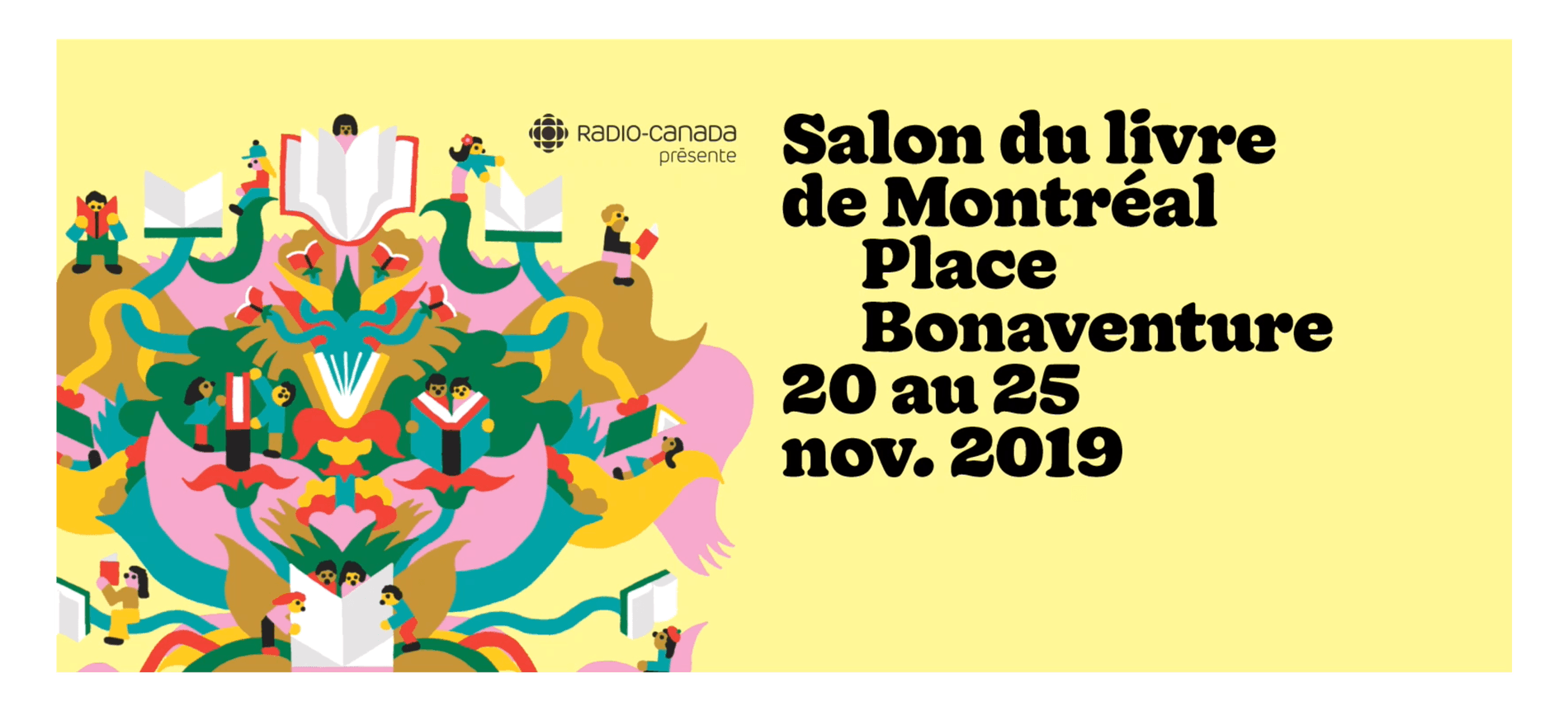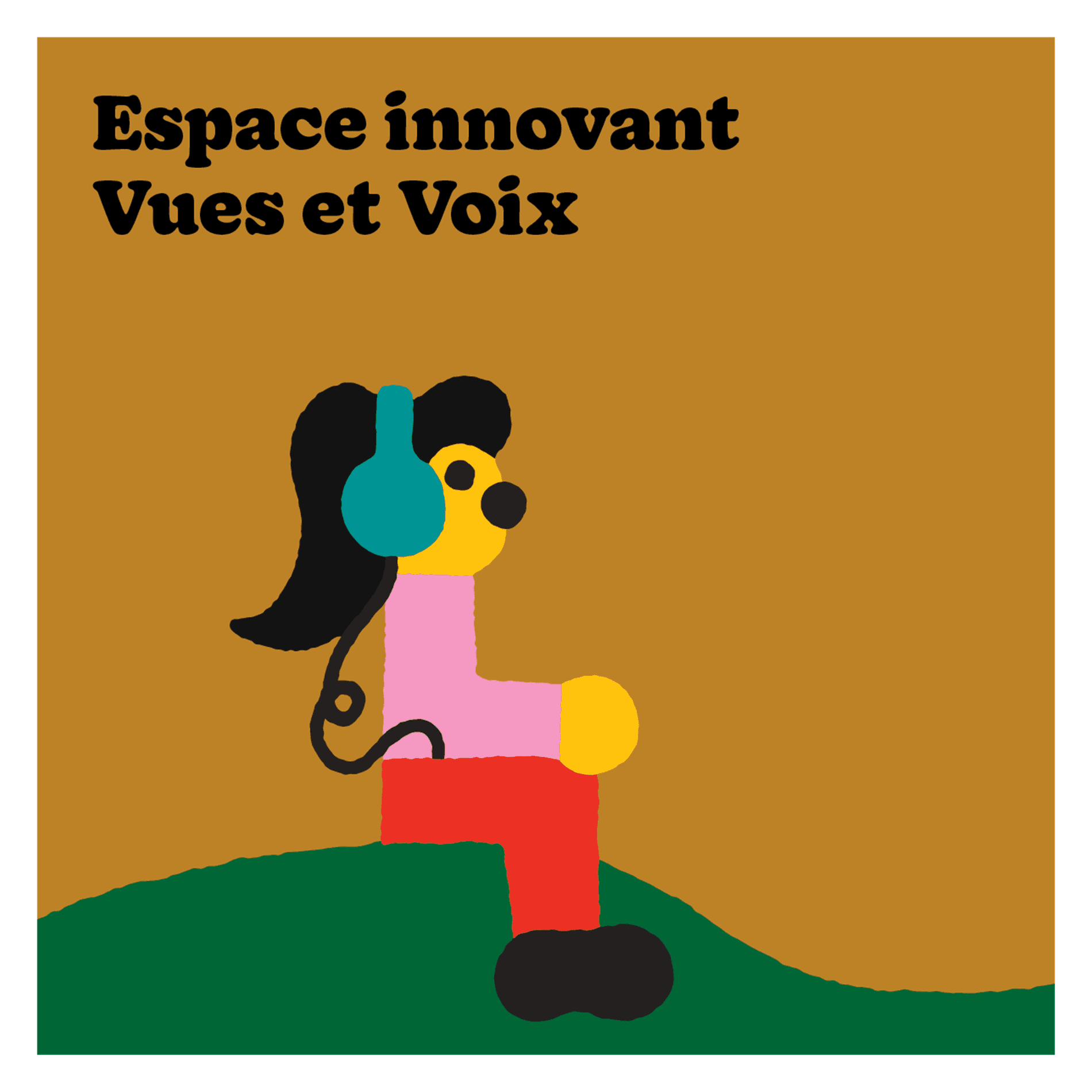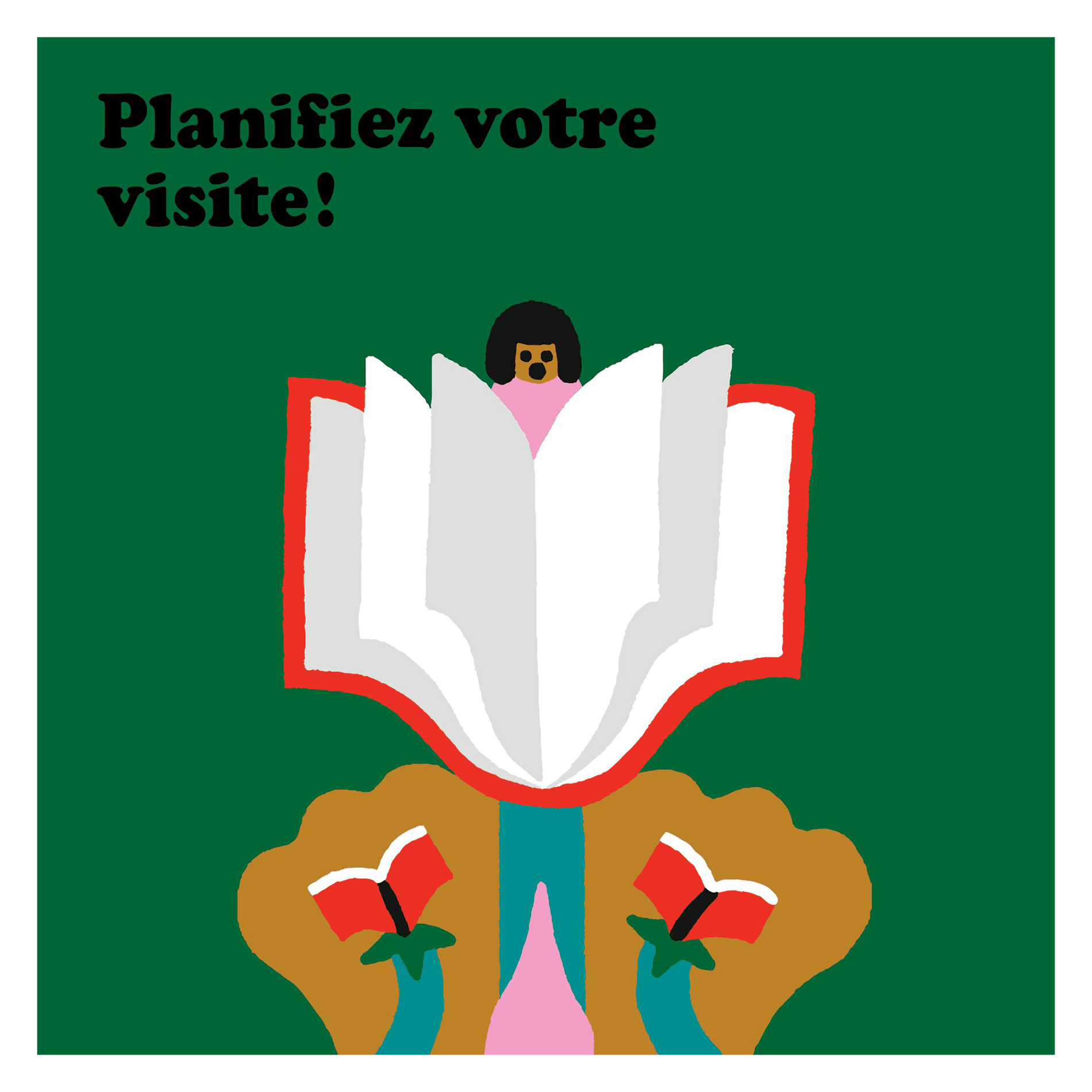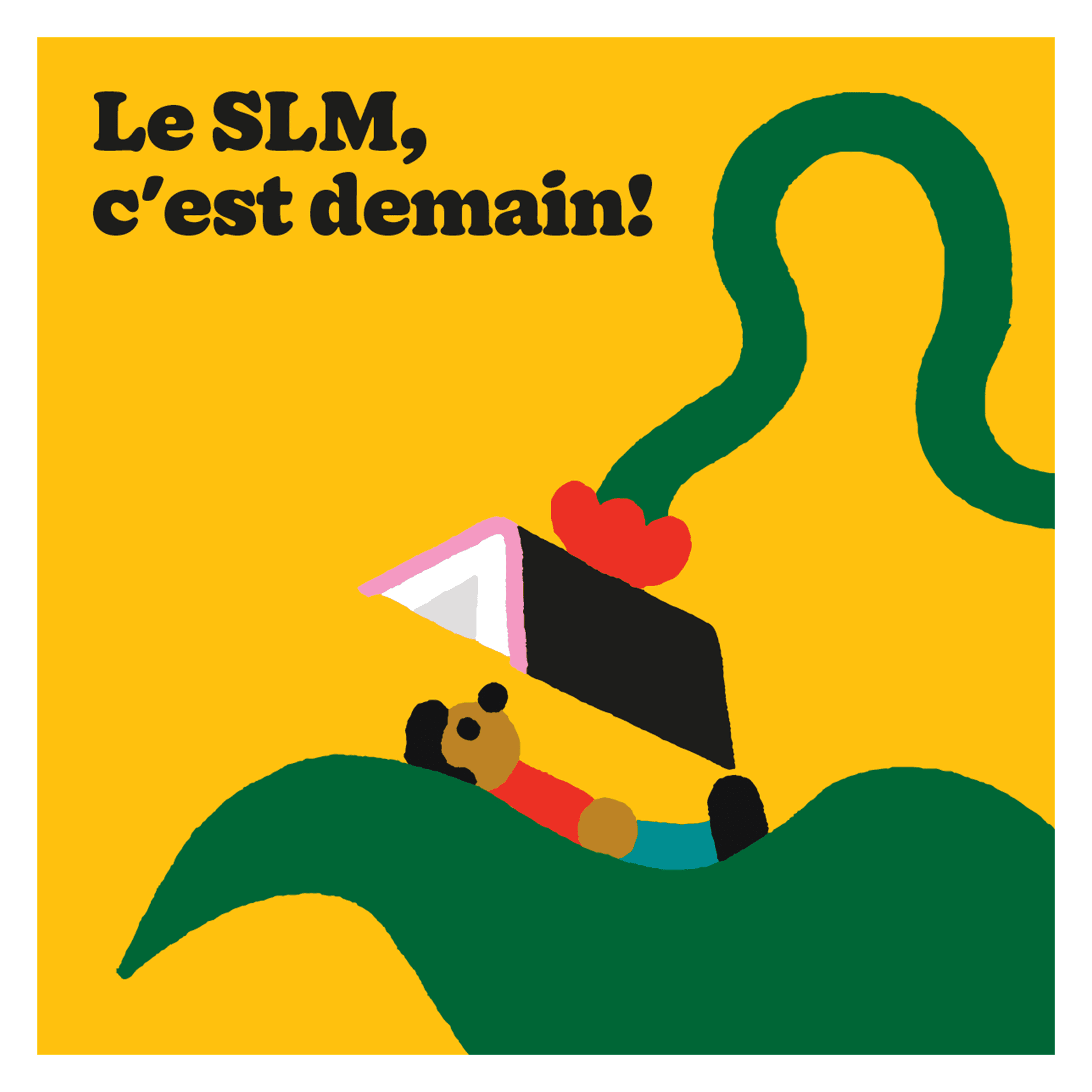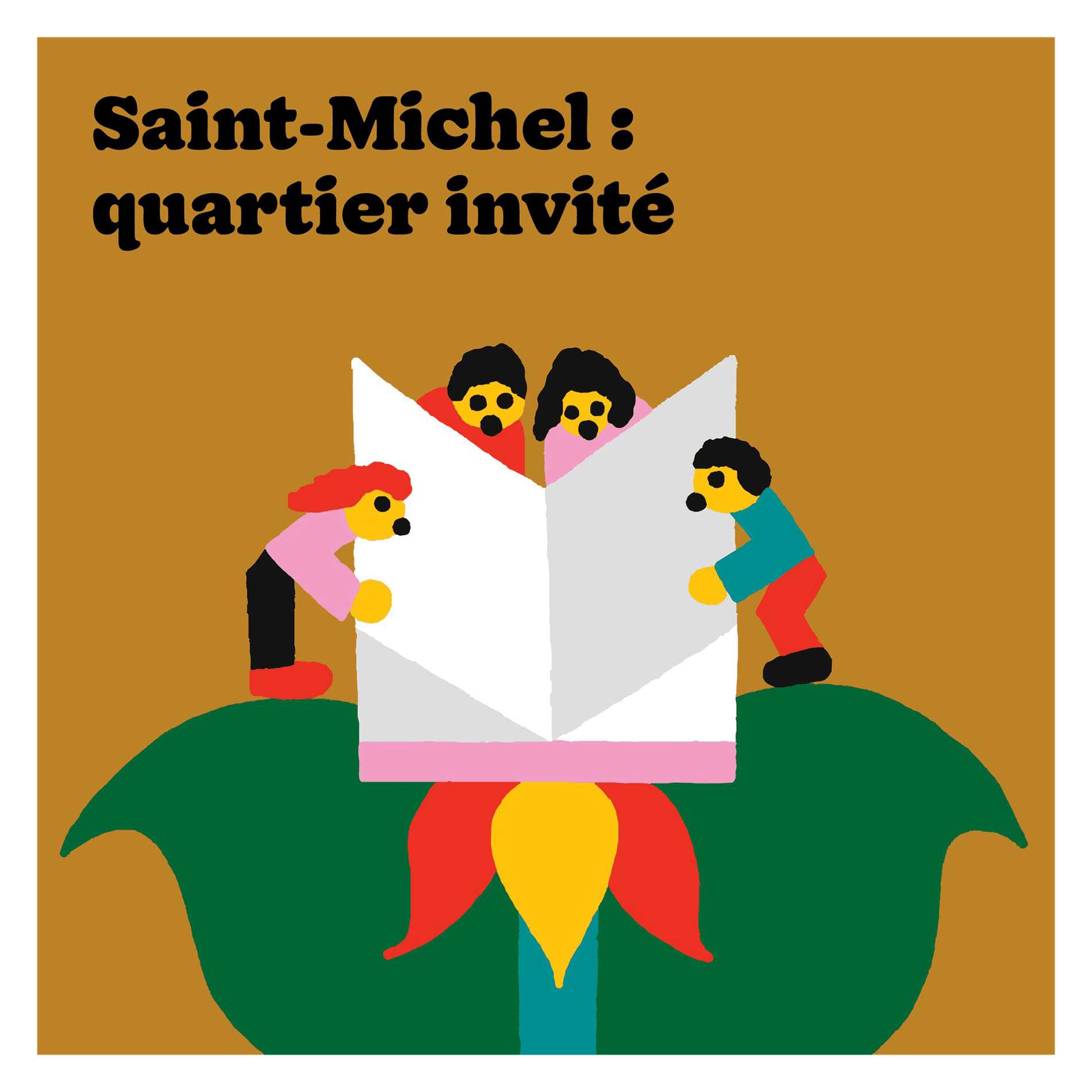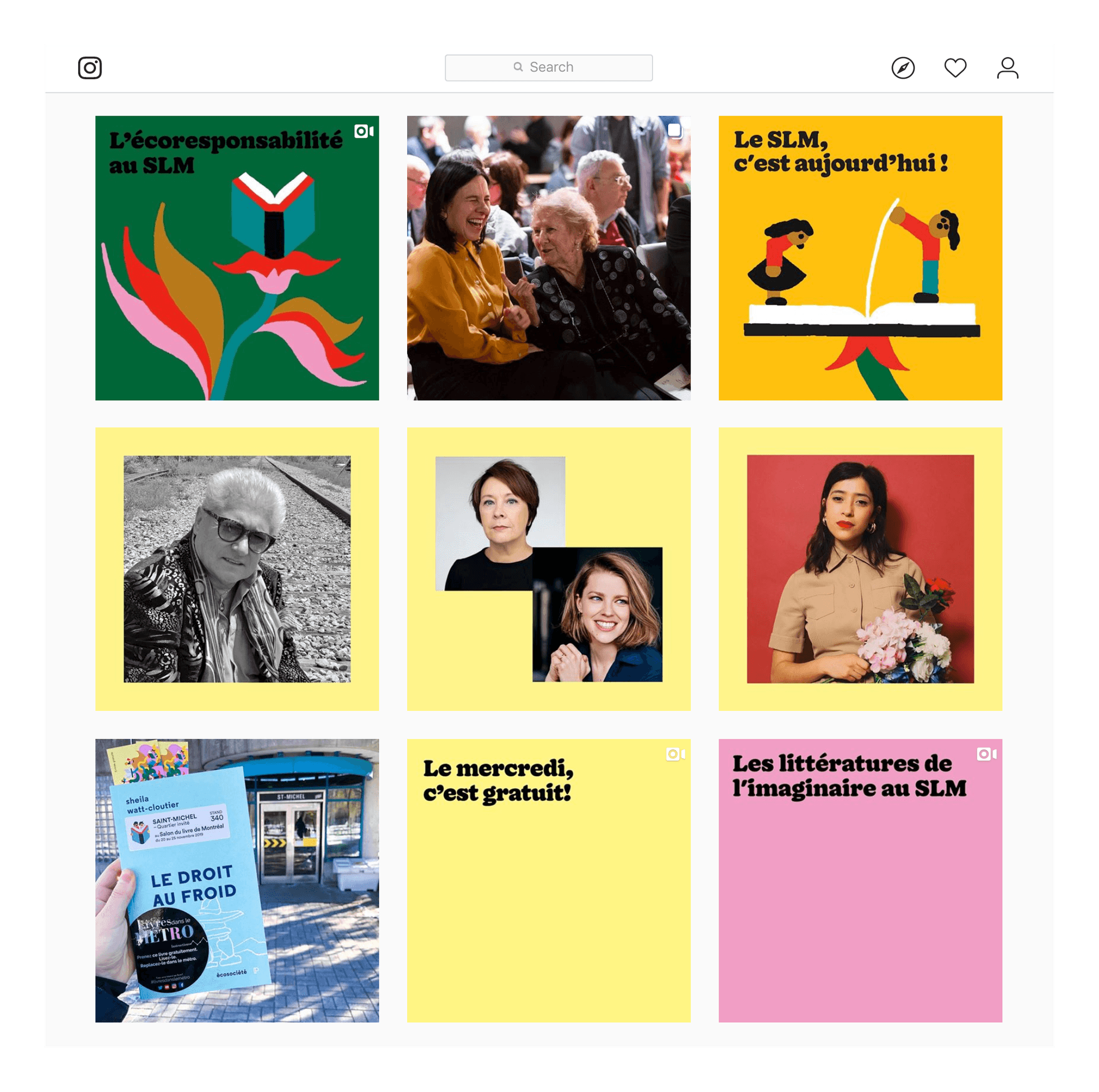
The Montreal Book Fair is an annual event celebrating the fun of reading and fostering community for book lovers, booksellers, publishers, and librarians in Quebec. Since 1978, the event has taken place at Place Bonaventure, hosting hundreds of thousands of visitors and authors.
For the 2019 fair, Montreal based designers at Principal Studio use Doyle as the primary typeface for the identity, digital media, signage, and clothing. Pairing the darkest weight of Doyle with cheerful, colorful illustrations, they capture the organization’s values to reach audiences of all ages and backgrounds.
Typeface: Doyle